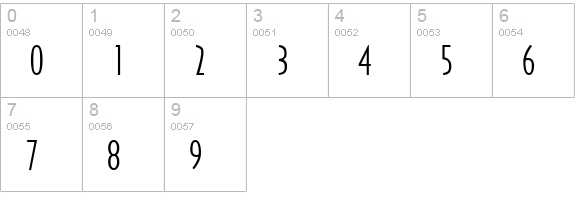
Cassandra Regular Font Details
Cassandra Regular is the standard, neutral variant in the Cassandra typeface family \xE2\x80\x94 well suited to general body text, paragraphs, and standard typographic work.
Cassandra Regular font is a versatile and elegant typeface that exudes sophistication and charm. With its timeless design and classic appeal, this font is perfect for a wide range of design projects, from branding to editorial work. The clean lines and subtle curves of Cassandra Regular make it easy to read and pleasant to the eye, making it a great choice for both print and digital applications. What makes Cassandra Regular even more appealing is that it is available for free download at FontsMarket.com. This means that you can easily access this high-quality font without any cost, making it a valuable addition to your design toolkit. Whether you're a professional designer or a hobbyist looking to enhance your projects, Cassandra Regular is a must-have font that you can use with confidence. Download it today and elevate your designs with this stylish and versatile typeface.